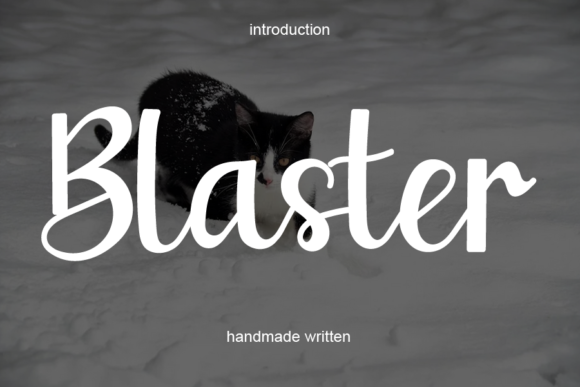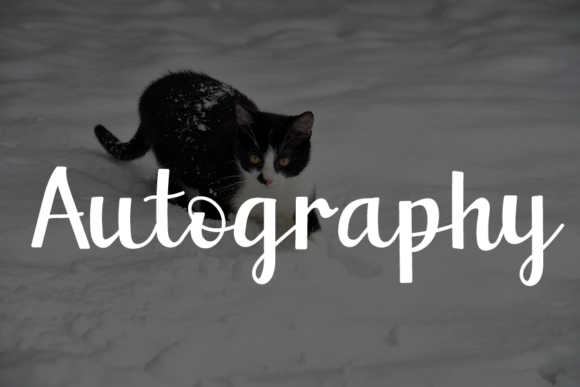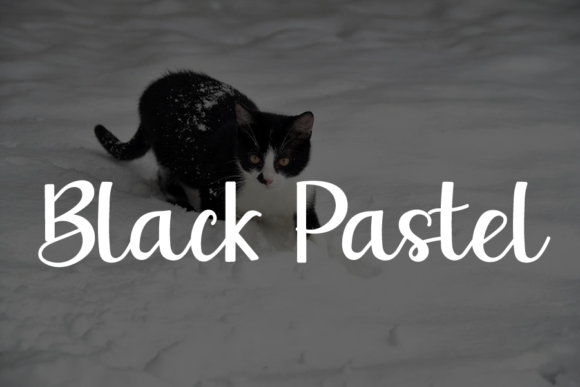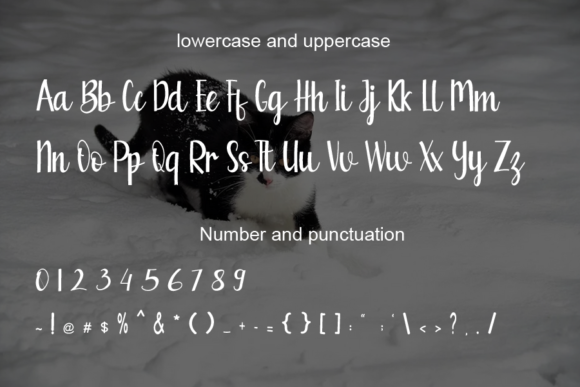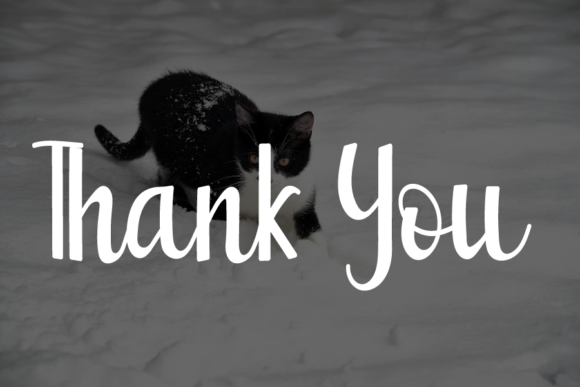
Blaster Font
About Blaster Font
Blaster is a beautiful script font that works well for a variety of designs. Get inspired by its playful romantic charm! No matter the topic, this font will be an incredible asset to your fonts’ library, as it has the potential to elevate any creation.